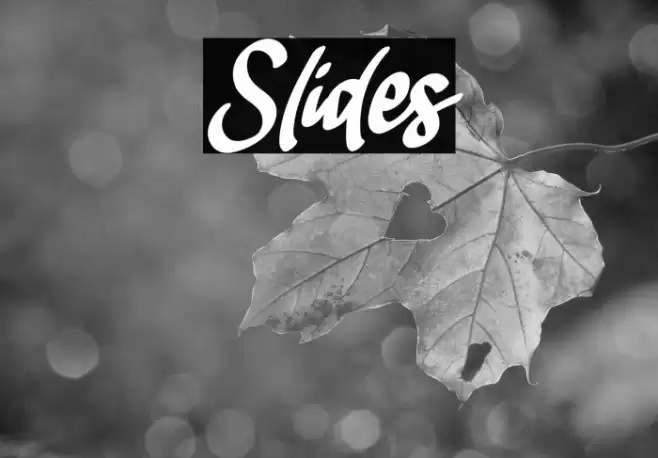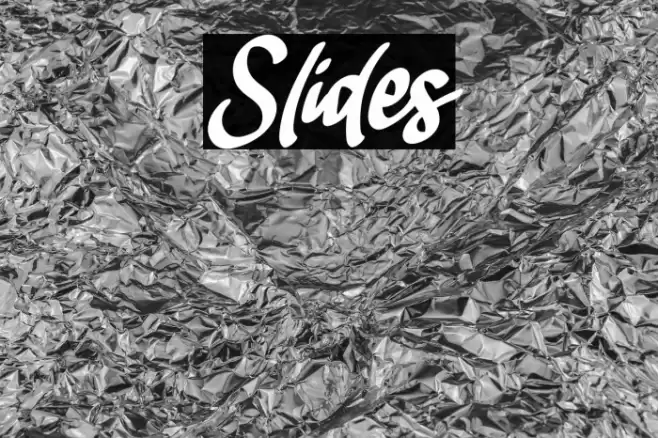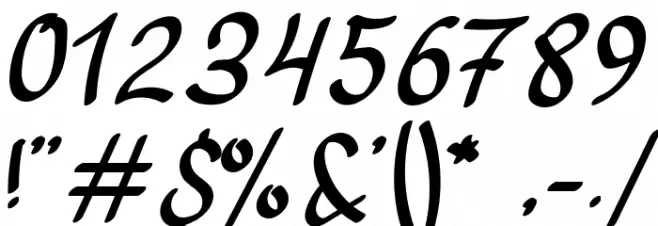
Slides Font
Slides Description
This font features a dynamic and flowing script style, characterized by its elegant and cursive letterforms. The uppercase letters exhibit a graceful, sweeping motion, while the lowercase letters maintain a consistent fluidity, enhancing the overall aesthetic. The numerals are crafted with the same attention to detail, offering a harmonious blend with the alphabet. Special characters are designed to complement the script's style, ensuring a cohesive look across all text elements. The font's bold strokes and smooth curves make it ideal for projects that require a touch of sophistication and flair.
A bold, cursive script font with elegant, flowing letterforms from Regular fonts.